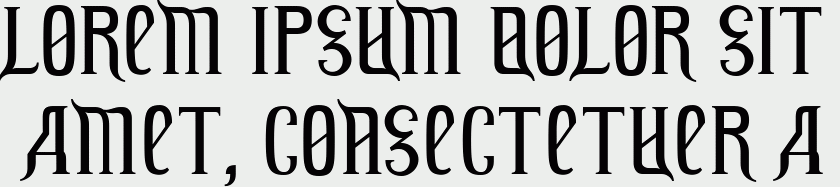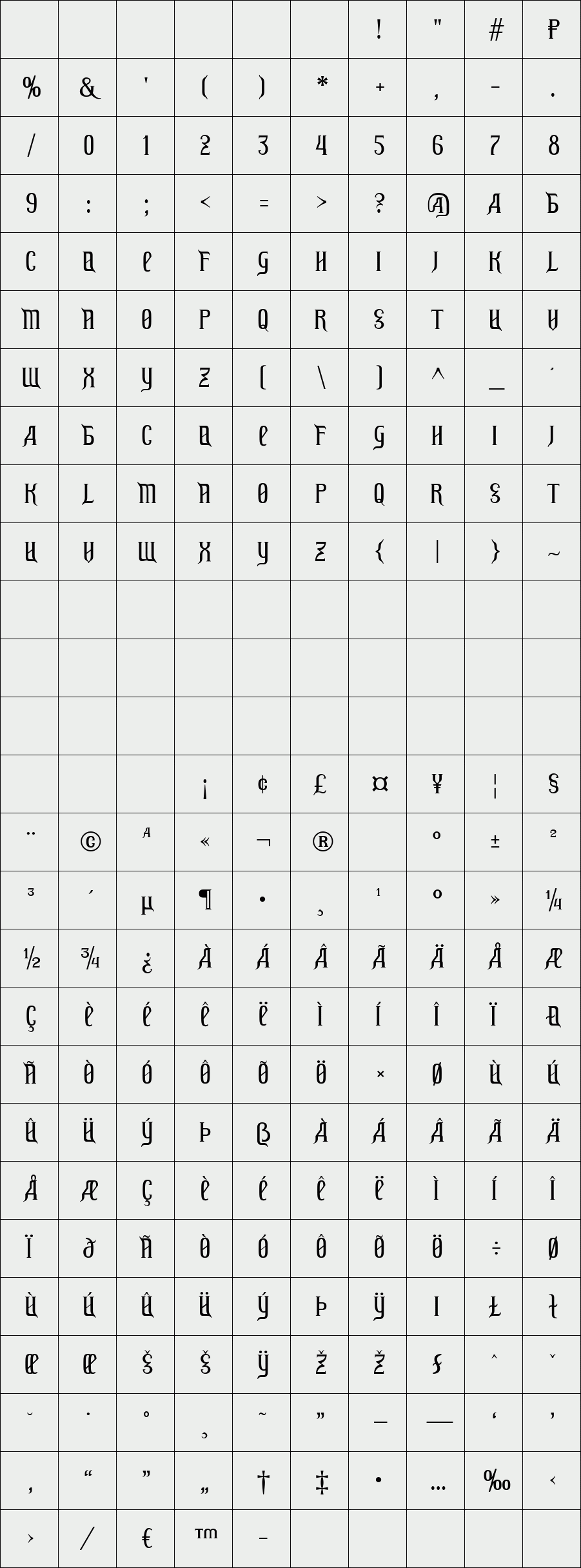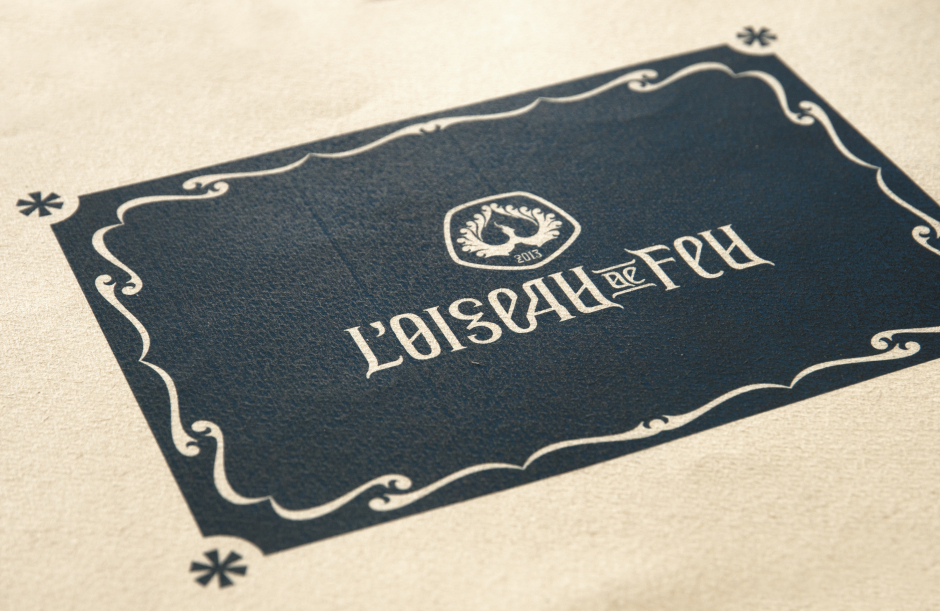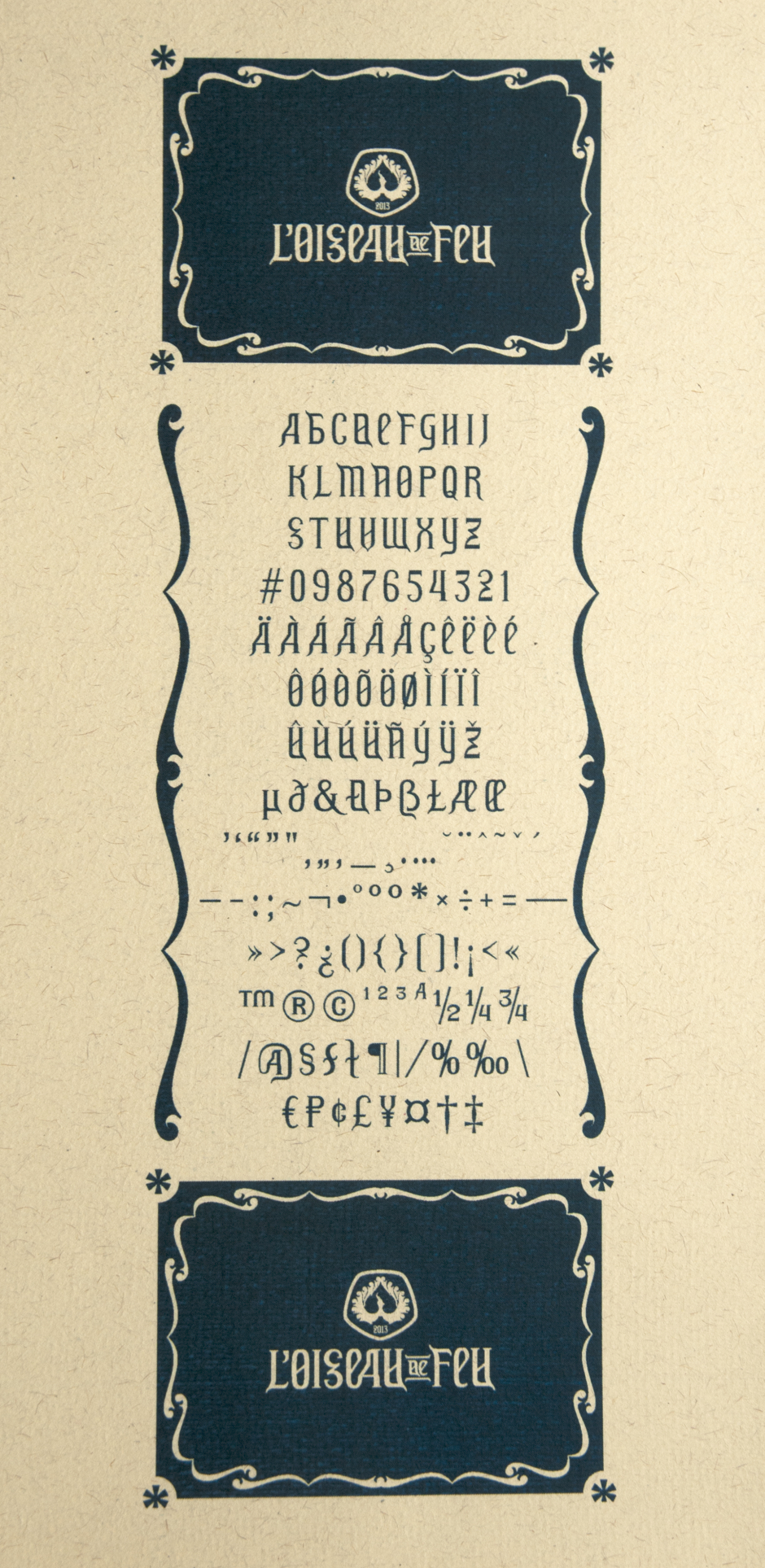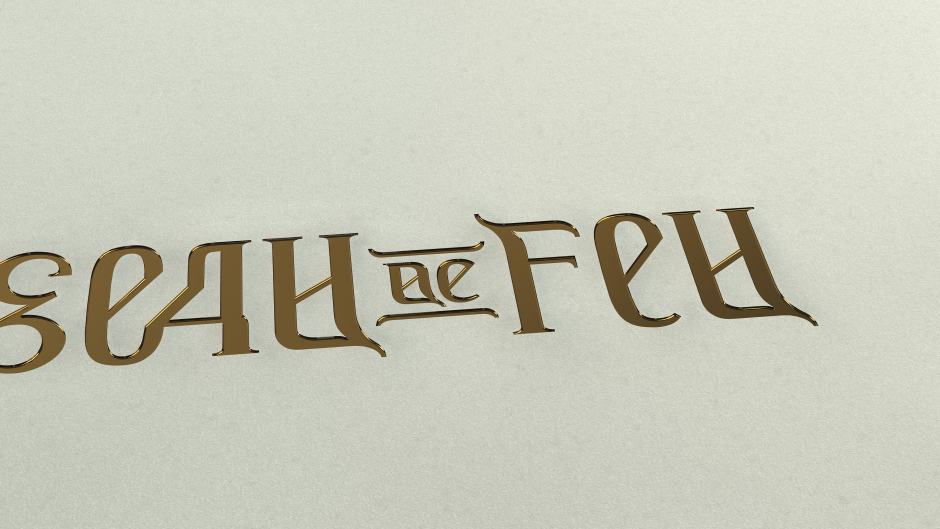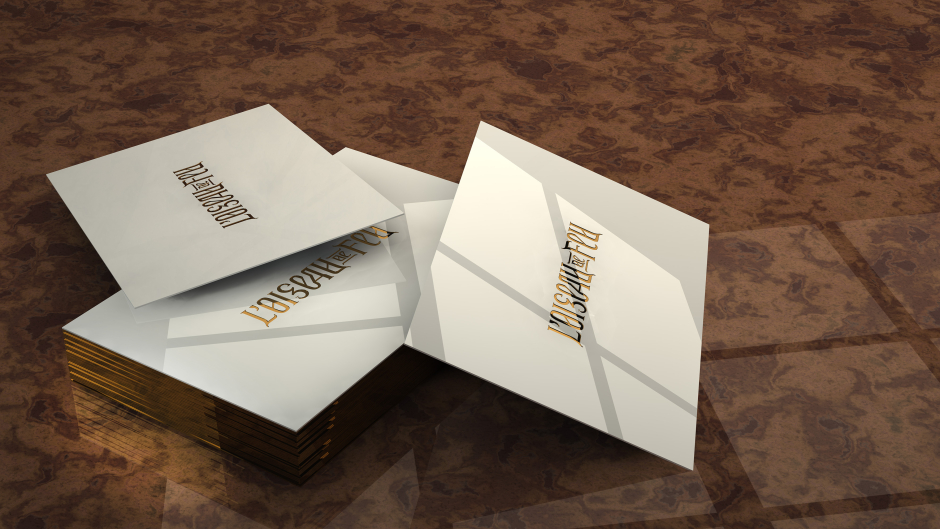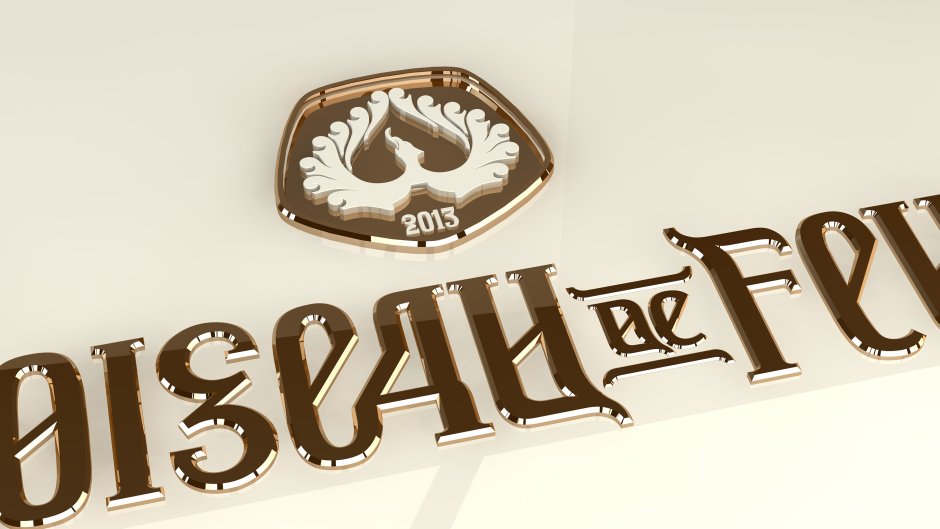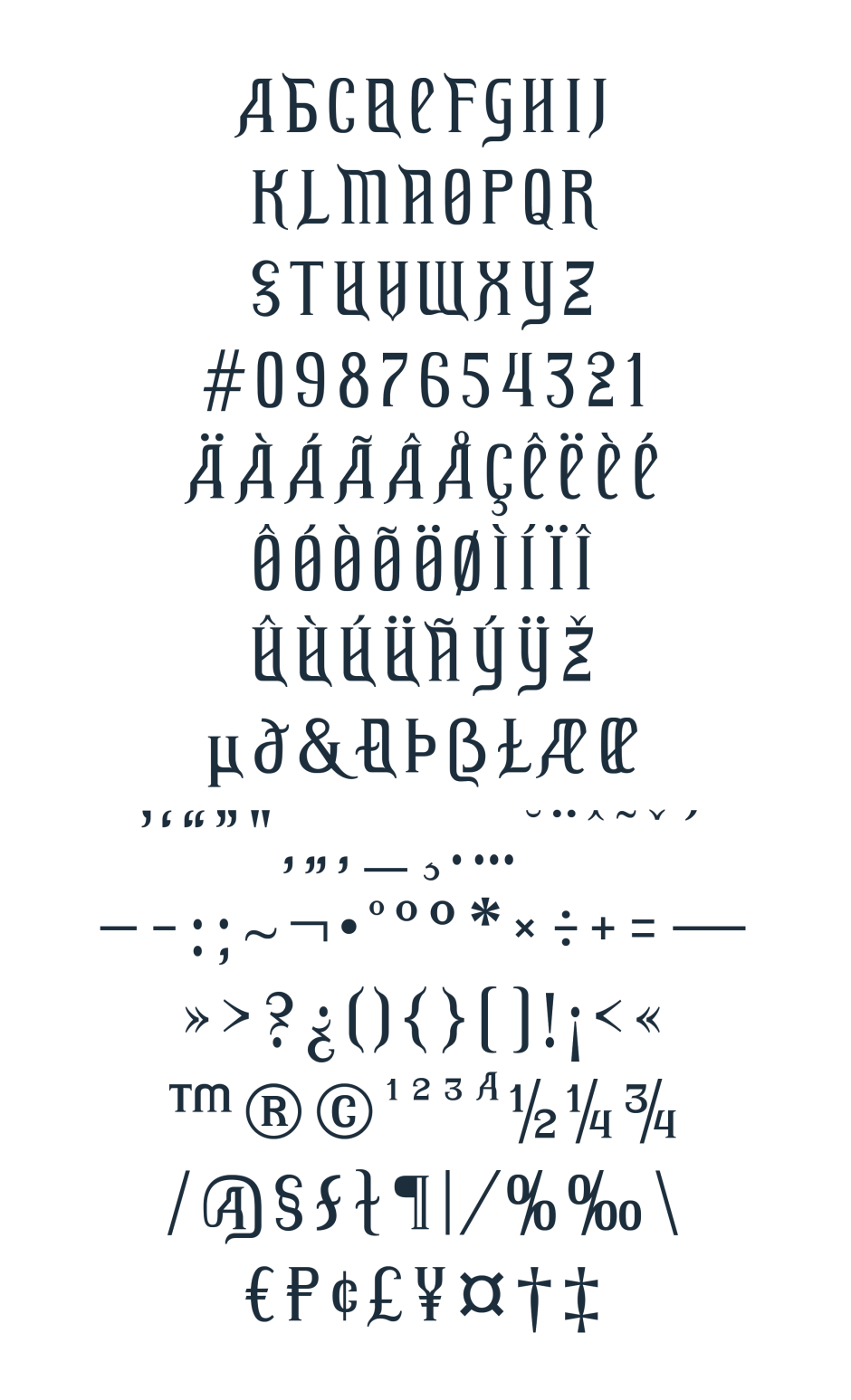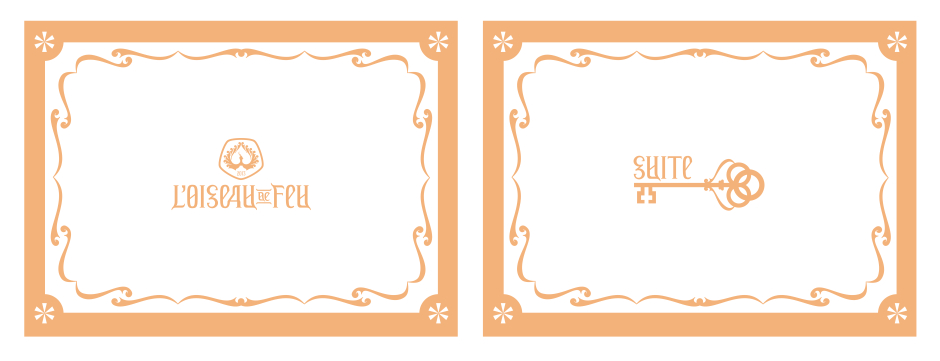
L'Oiseau de Feu
L'Oiseau de Feu (Phoenix) is a serif font with an elegant and Russian look. It got it's french name because I made it for a fictitious hotel and casino that is based in Paris with a Russian style. As you can see, the font is not meant for large readable text, but a full page of the Latin script still has a nice foreign look.